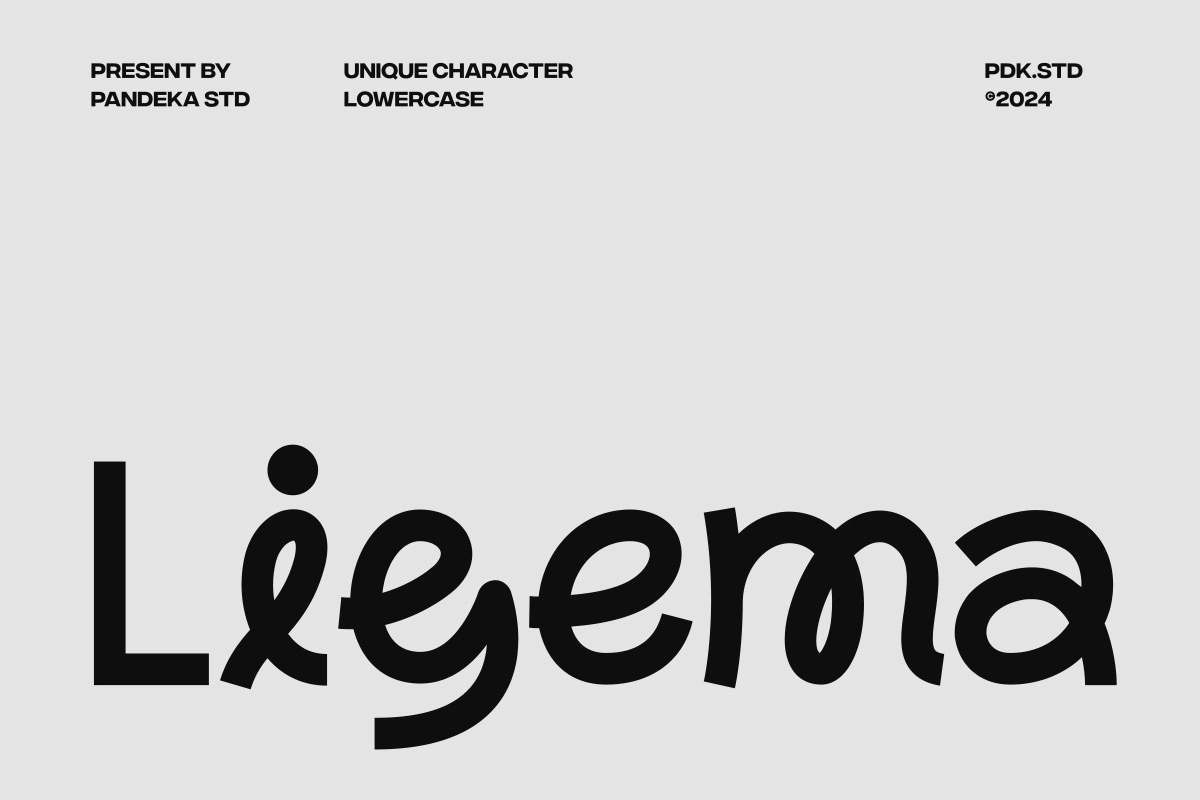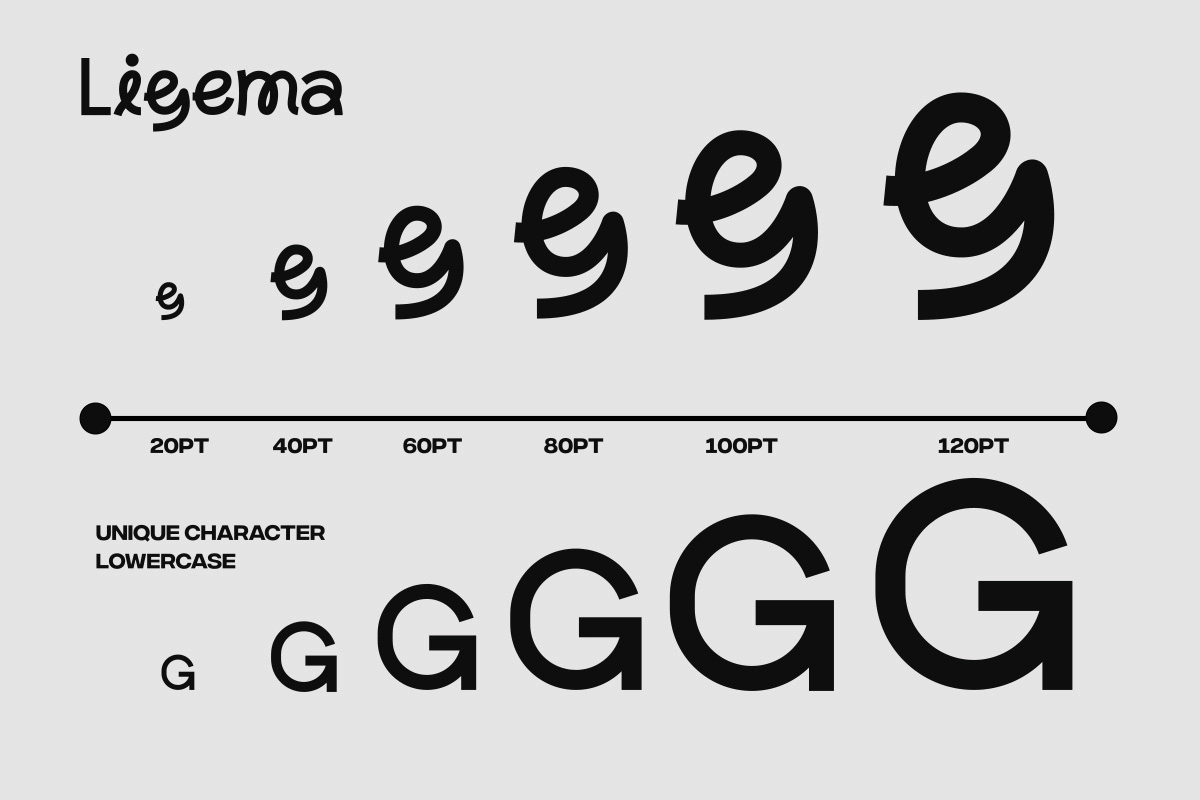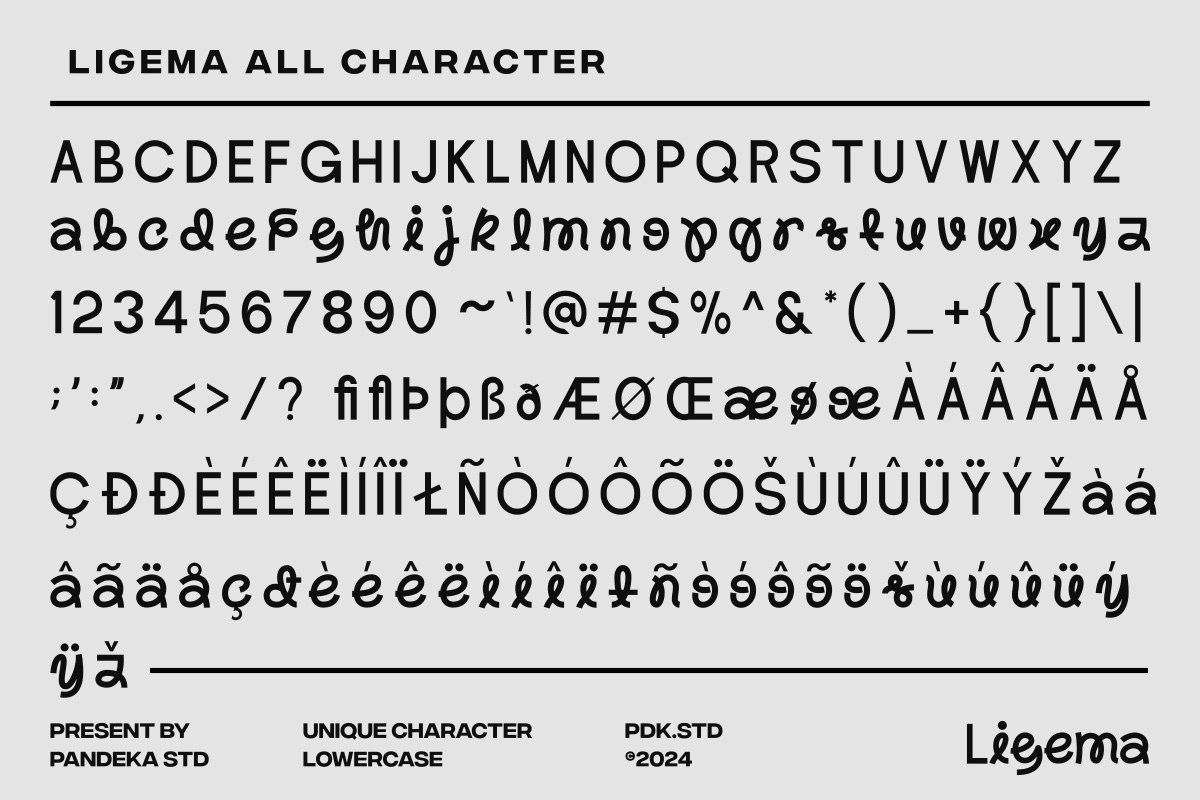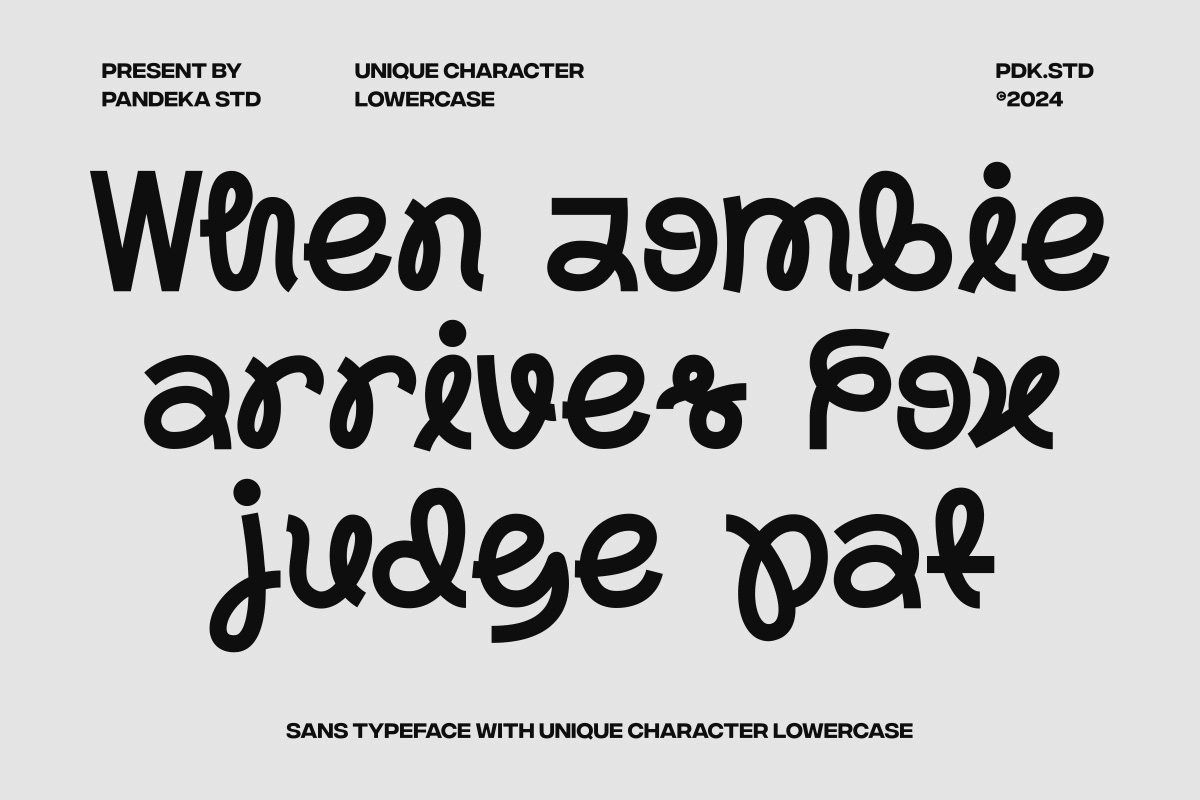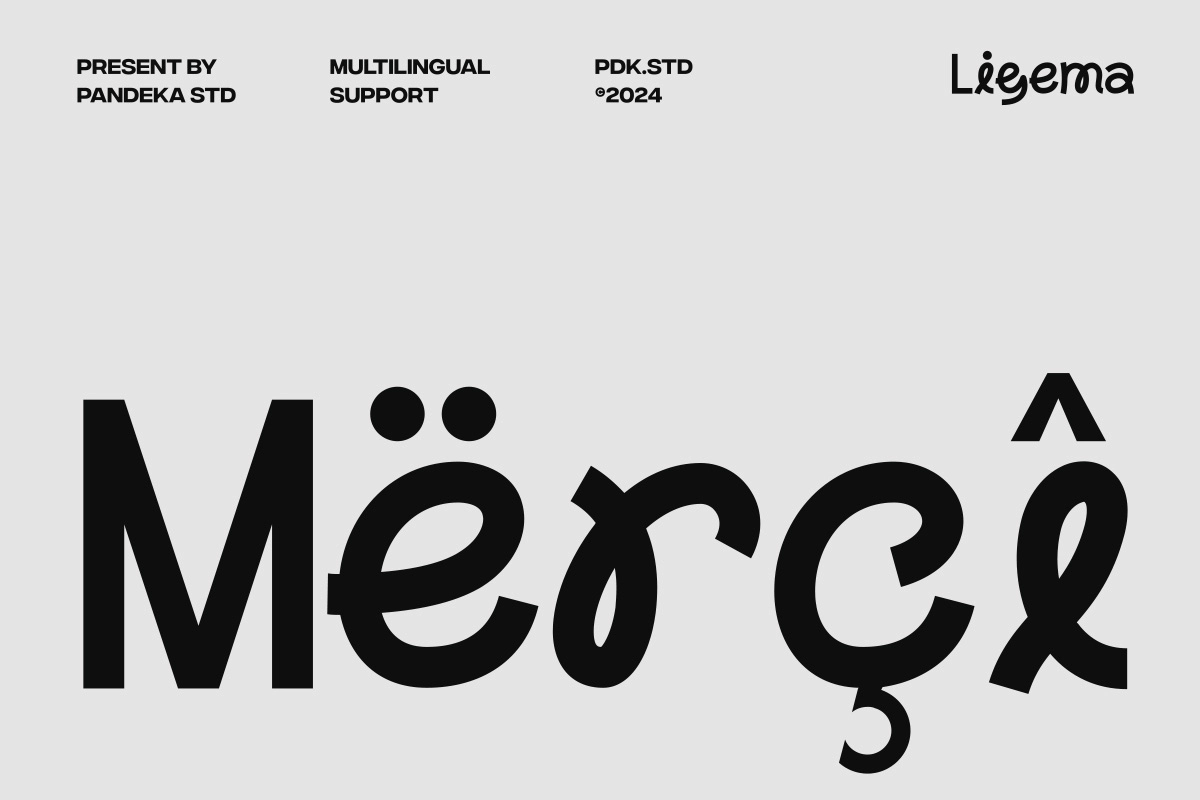
Ligema - Playful Display Sans Serif Font
Ligema is a playful sans serif font with a split personality by design: the uppercase runs geometric and bold, with clean strokes and even weight, while the lowercase breaks into looping, calligraphic forms — "e" spirals into a swash, "g" grows a curled tail, "r" and "t" hook and arc like handwritten marks. The contrast between the two cases is the main event, and it gives the font a graphic tension that few single-weight sans achieve.
It works best in short settings where that uppercase-lowercase interplay is visible at scale. Use it for logotypes, poster headlines, streetwear and apparel branding, packaging for youth and lifestyle products, social media graphics, editorial titles, and any project that wants energy without dropping into script territory.
- uppercase & lowercase;
- numerals, punctuation & symbols;
- standard ligatures;